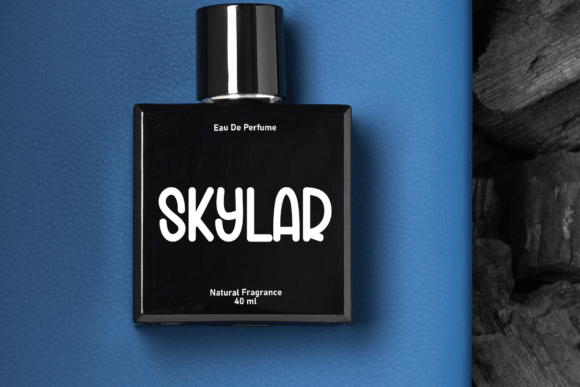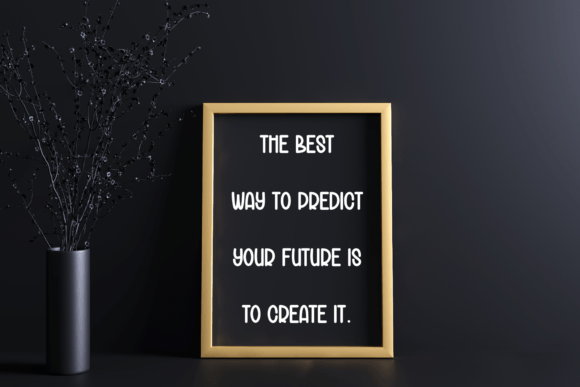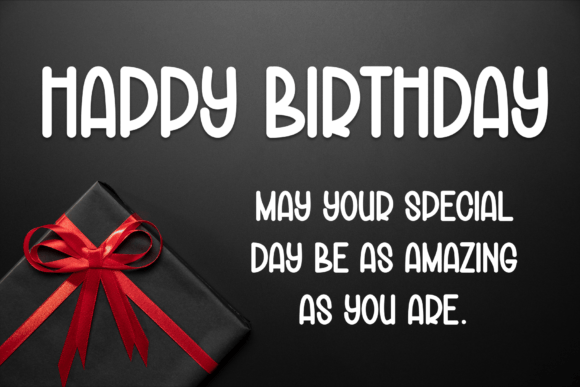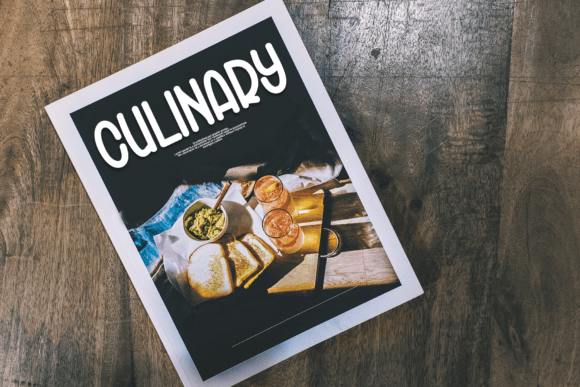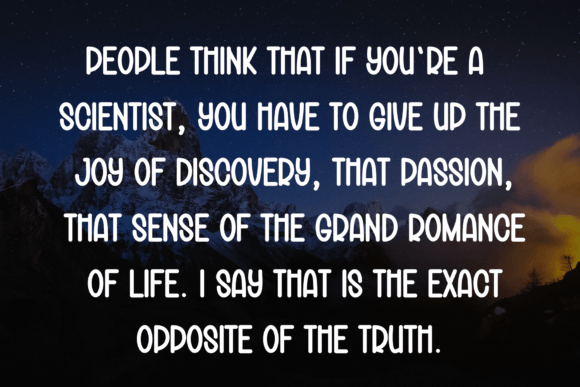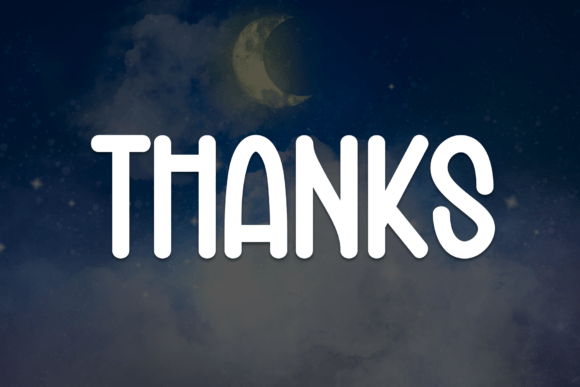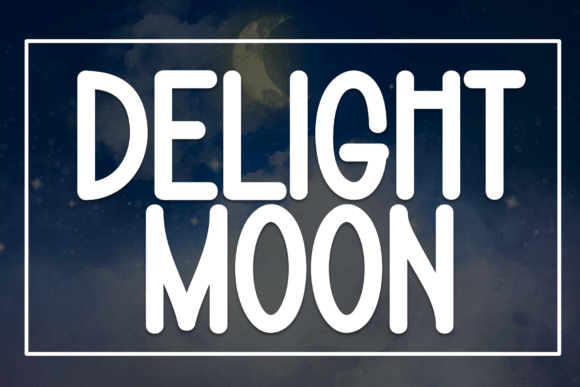
Introducing Delight Moon Font: The Sweet and Friendly Handwritten Font for Your Creative Projects
Are you a designer, crafter, or DIY enthusiast looking for a font that can add a touch of warmth and personality to your projects? Look no further than Delight Moon Font, a sweet and friendly handwritten font that’s perfect for a wide range of designs. With its natural and unique style, Delight Moon Font is incredibly versatile and can be used for everything from greeting cards and invitations to branding and advertising.
The Characteristics of Delight Moon Font
Delight Moon Font is a handwritten font that’s designed to look like it was written with love and care. Its natural and unique style makes it stand out from more traditional fonts, and its friendly and approachable tone makes it perfect for projects that require a personal touch. The font features:
• Unique and Natural Style: Delight Moon Font has a one-of-a-kind style that’s both elegant and playful. Its natural look and feel make it perfect for designs that require a human touch.
• Sweet and Friendly Tone: The font has a warm and inviting tone that’s perfect for projects that require a friendly and approachable feel.
• Highly Versatile: Delight Moon Font can be used for a wide range of designs, from greeting cards and invitations to branding and advertising.
Uses for Delight Moon Font
Delight Moon Font is incredibly versatile, and its uses are only limited by your imagination. Here are just a few ideas to get you started:
• Greeting Cards and Invitations: Use Delight Moon Font to create beautiful and personalized greeting cards and invitations for special occasions like birthdays, weddings, and holidays.
• Branding and Advertising: Use the font to add a touch of warmth and personality to your brand or advertising materials, such as logos, brochures, and flyers.
• DIY Projects: Delight Moon Font is perfect for DIY enthusiasts who want to add a personal touch to their projects, such as scrapbooking, journaling, and crafting.
• Social Media Graphics: Use the font to create eye-catching social media graphics, such as quotes, posters, and ads.
Why Choose Delight Moon Font?
There are many fonts to choose from, but Delight Moon Font stands out from the rest. Here are just a few reasons why:
• Unique Style: Delight Moon Font has a unique and natural style that will make your designs stand out from the crowd.
• Easy to Read: The font is highly legible, making it perfect for designs that require a clear and easy-to-read message.
• High-Quality: Delight Moon Font is a high-quality font that’s designed to look great in any design.
Tips for Using Delight Moon Font
Here are a few tips for using Delight Moon Font in your designs:
• Use it with Other Fonts: Delight Moon Font pairs well with other fonts, so feel free to experiment with different combinations to find the perfect look for your design.
• Experiment with Colors: The font looks great in a variety of colors, so don’t be afraid to experiment with different colors to find the perfect match for your design.
• Keep it Simple: Delight Moon Font is a beautiful font, so keep your design simple and let the font shine.
In conclusion, Delight Moon Font is a sweet and friendly handwritten font that’s perfect for designers, crafters, and DIY enthusiasts. Its natural and unique style makes it incredibly versatile, and its friendly and approachable tone makes it perfect for projects that require a personal touch. With its high-quality design and ease of use, Delight Moon Font is a great addition to any design toolkit.